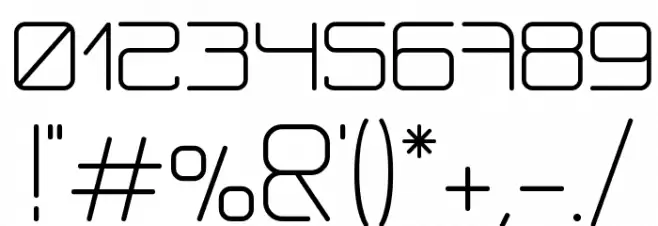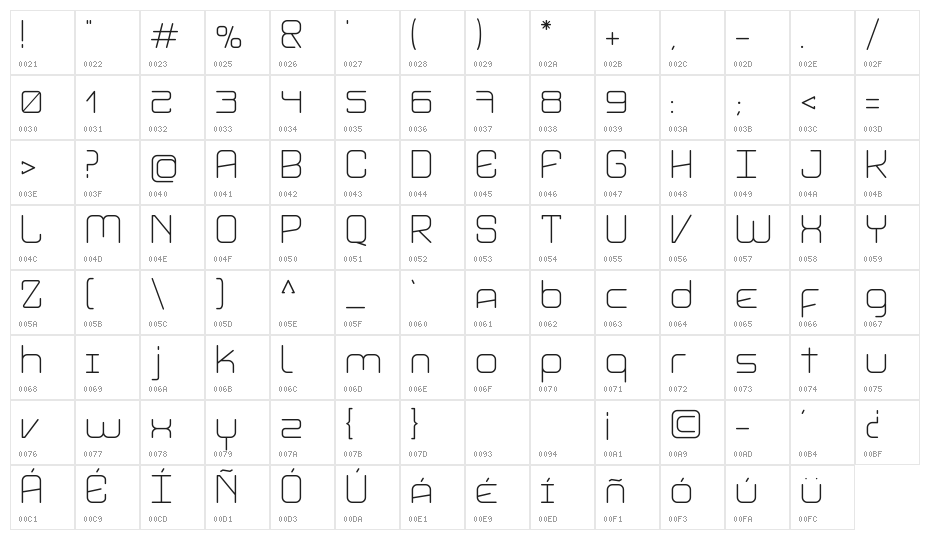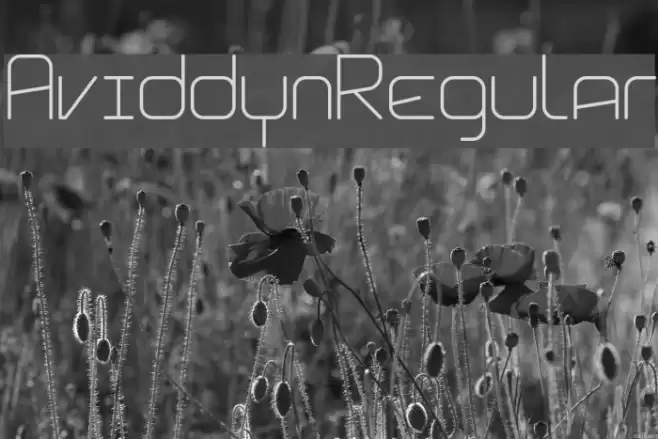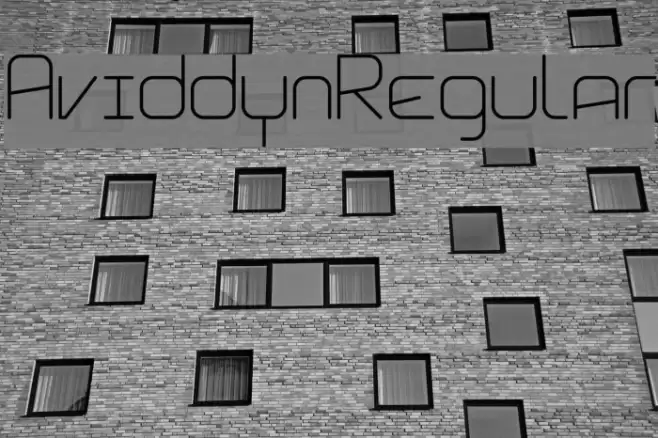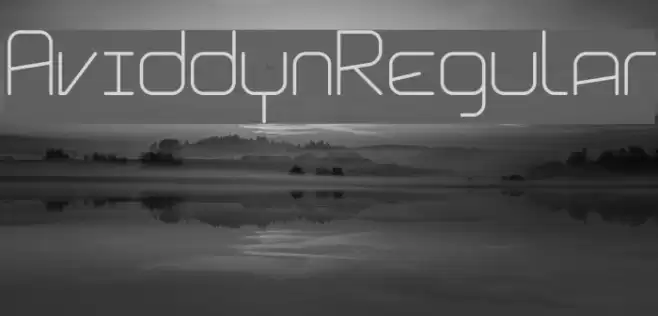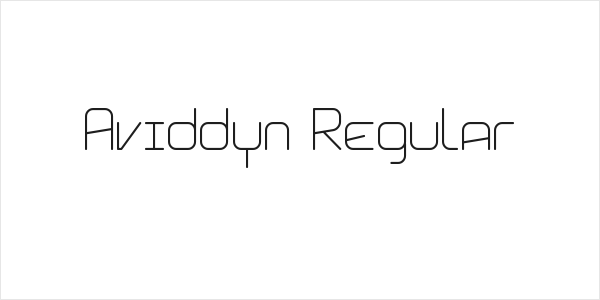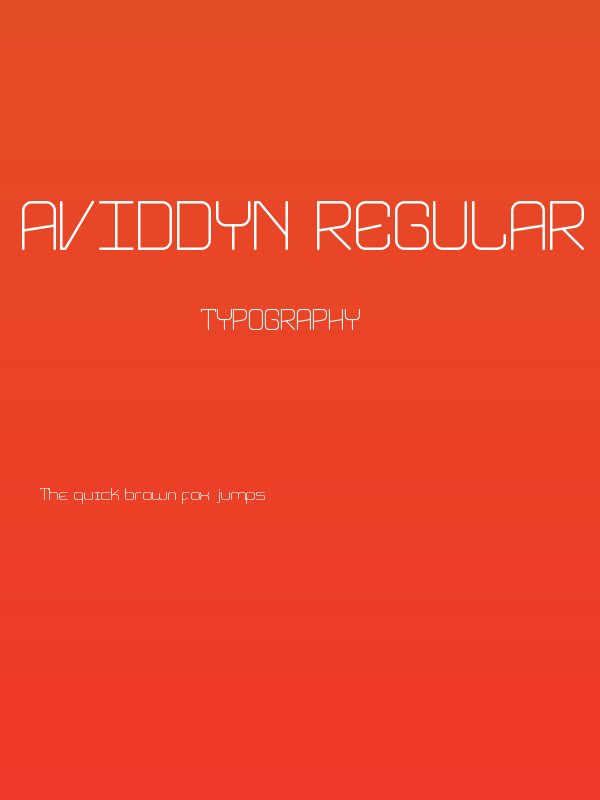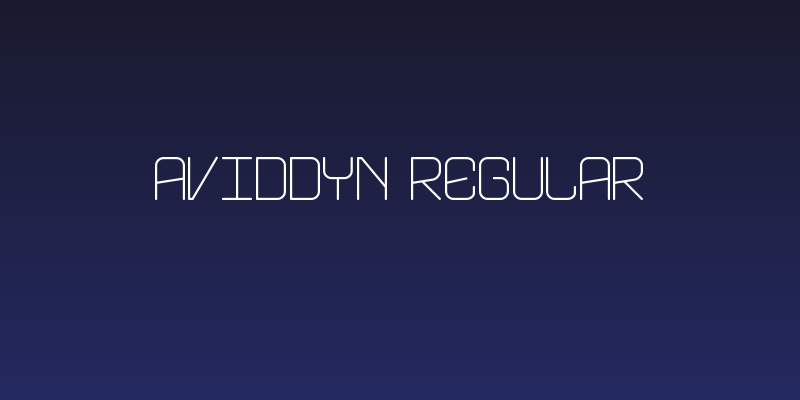
Aviddyn Regular Font
Aviddyn Regular Description
This font features a sleek, geometric design with a modern and minimalist aesthetic. The characters are composed of thin, uniform lines that create a clean and open appearance. The uppercase and lowercase letters maintain a consistent height, contributing to a harmonious and balanced look. The numerals and special characters follow the same design principles, ensuring a cohesive overall style. The font's simplicity and clarity make it highly legible, even at smaller sizes, while its unique geometric shapes add a touch of sophistication and elegance.